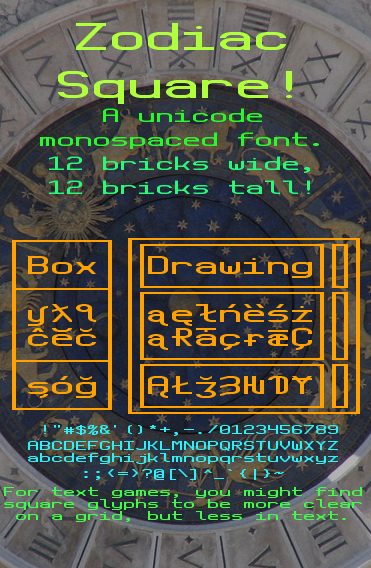
• With 12x12 pixels at size 6/8 font, the new brick filter options are on display in Zodiac Square. To ensure a square font, any accented glyphs from Mandrill (my monospaced, lanky, much-of-unicode font) that went above a capital A's peak were cut, but many lower-case accented glyphs stayed in. Since this is meant for a text-heavy game genre where legibility at small size is important, all of Latin Extended Additional was cut -- it was just too hard to read at small sizes, and I doubt it would be very useful in a roguelike or similar text-based game that needs square glyphs. This looks pretty good with anti-aliasing, but the preview may be funny because it uses the old 2x2 filter as well as the new horizontal stretch filter. It's called Zodiac Square because of the 12x12 pixels, 12 signs of the Zodiac.